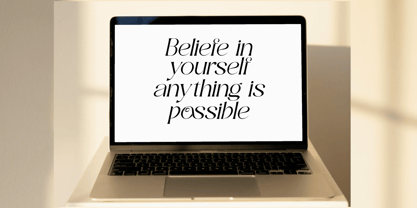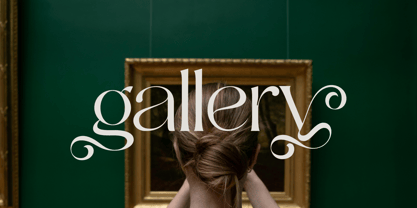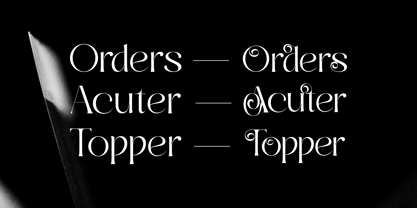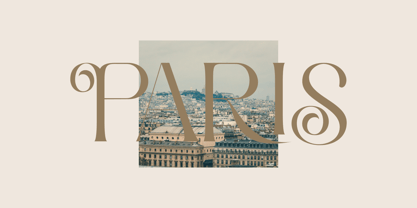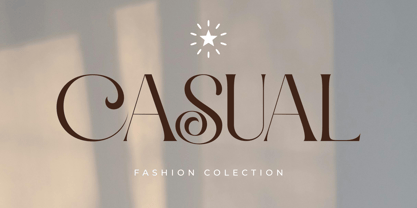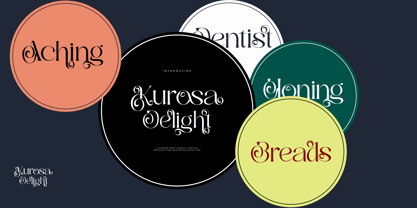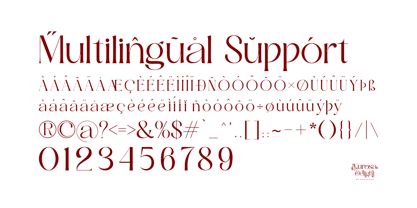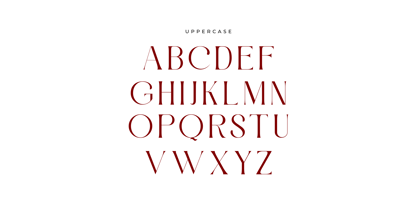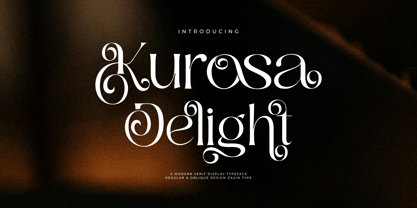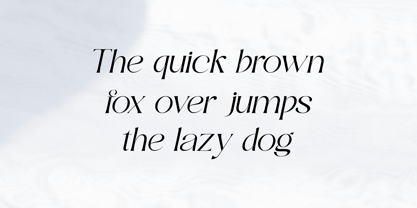
Kurosa Delight
by Zaain Type
The Kurosa Delight Font Family was designed by Ju Naen and published by Zaain Type. Kurosa Delight contains 2 styles and family package options. More about this family
Kurosa Delight is an elegant serif font that strikes a perfect balance between classic and modern. Available in two styles—Regular and Oblique—this typeface is designed to bring a luxurious and distinctive touch to any design. Perfect for branding, editorials, and premium packaging, Kurosa Delight is ready to become a signature element in your visual work
Designers: Ju Naen
Foundry: Zaain Type